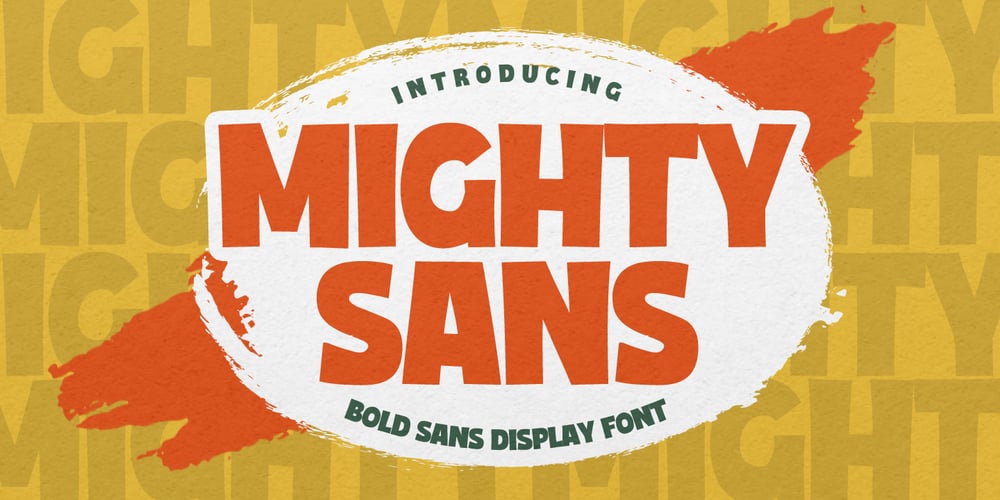
Mighty Sans
Mighty Sans font
Mighty Sans Font Family was designed by Abdul Malik Wisnu, Anang Fibriyanto and published by Gassstype. Mighty Sans contains 1 styles and family package options. Hello Everyone, introduce our new product Font Mighty Sans This Is Bold Sans Display Font.This is a Textured Natural Style and classy style with a clear style and dramatic movement.That is has charming, authentic and relaxed characteristic more natural look to your text.